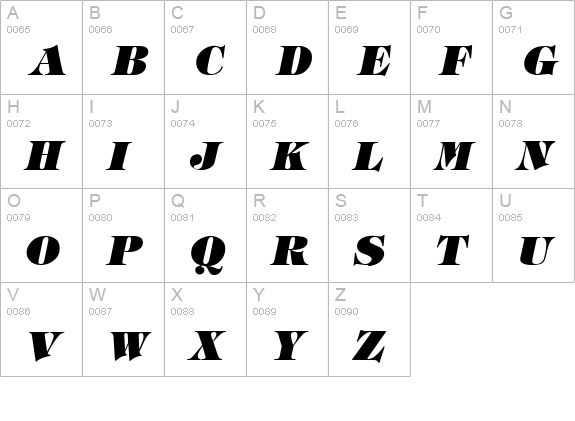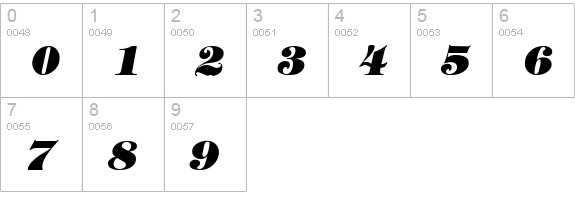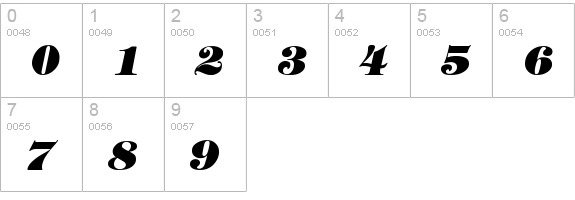
Tiffany-Heavy-Italic is a heavy, high-impact, italic variant in the Tiffany typeface family \xE2\x80\x94 well suited to high-impact headlines, posters, and display advertising.
Introducing Tiffany-Heavy-Italic, a visually striking font that exudes elegance and sophistication. This unique typeface captures attention with its bold and distinctive letterforms, which are delicately slanted to add a touch of grace and allure to any design project. Tiffany-Heavy-Italic is a perfect choice for those seeking a font that effortlessly combines strength and finesse. Its heavy weight gives it a commanding presence, while the italics lend an air of style and refinement. Whether used in headlines, branding, packaging, or invitations, this font is sure to make a lasting impression. But what sets Tiffany-Heavy-Italic apart is that it is not only visually stunning but also freely available to download. At FontsMarket.com, you can easily access this remarkable font and incorporate it into your creative endeavors without any cost. This means that your designs can now benefit from the elegance and allure of Tiffany-Heavy-Italic without breaking the bank. So why wait? Enhance your projects with the captivating beauty of Tiffany-Heavy-Italic and download it today from FontsMarket.com. Unleash your creativity and let this font bring a touch of sophistication to your designs, all while keeping your budget intact.